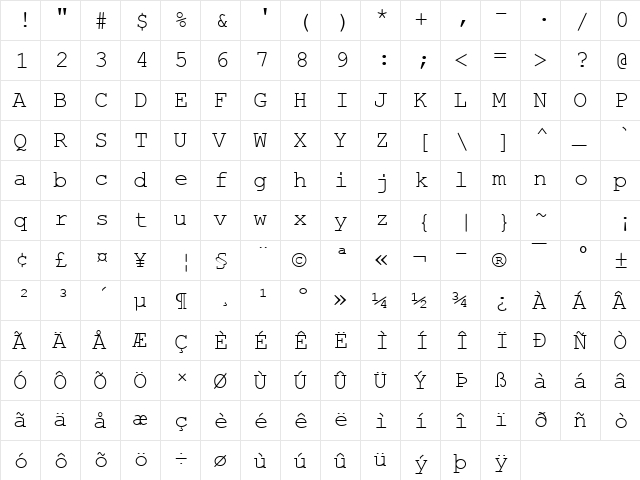
Polka 4 Regular
Design Context for Polka 4 Typeface
Polka 4 takes a measured approach to typography — its balanced proportions and neutral character make it a reliable workhorse for both digital and print work.